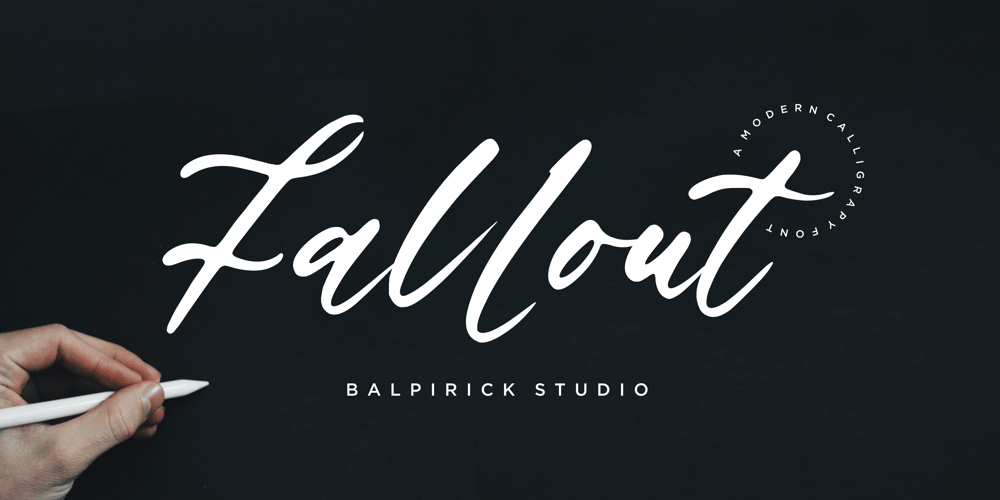
Fallout Font Family was designed by Restu Angga and published by Balpirick. Fallout contains 1 styles and family package options. Fallout is a Modern Calligraphy Font.Fallout is a flowing handwritten font, described by an elegant touch, perfect for your favorite projects. Fall in love with its incredibly distinct and timeless style and use it to create spectacular designs!Fallout also multilingual support.Enjoy the font, feel free to comment or feedback, send me PM or email.Thank you!